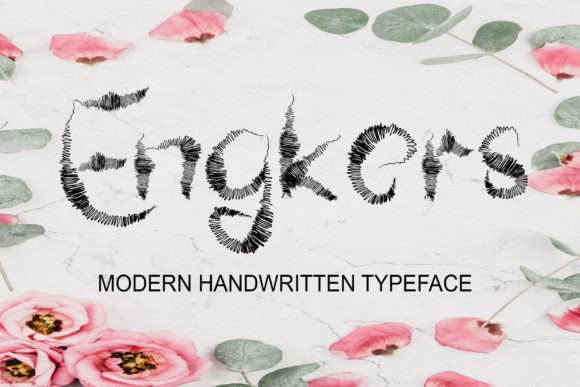
Introducing the Engkers Font family: A Script Haven for Creative Expression
Step into a world of elegance and charm, where handwritten artistry meets the digital age. Engkers Font is a captivating script font family, meticulously crafted to ignite creativity and elevate your projects to new heights.
Transport yourself to a world where words dance across the page with undeniable grace. Engkers' timeless calligraphy-inspired design brings a touch of sophistication and charm to any project, whether you're crafting personalized cards, designing social media posts, or creating eye-catching logos.
Explore the depths of Engkers' versatility, seamlessly transitioning from formal invitations to playful greeting cards. Its inherent charm will captivate your audience, leaving a lasting impression that speaks volumes.
Unleash your imagination and let Engkers become your creative companion. Its flowing lines and elegant curves will effortlessly add a personal touch to your designs, making them truly unique and unforgettable.
Don't settle for ordinary fonts. Embrace Engkers, a font family that ignites passion, sparks creativity, and transforms your projects into artistic masterpieces.
Immerse yourself in the world of Engkers and discover the endless possibilities that await. Experience the joy of creating with a font that feels like an extension of your own artistry.
Make Engkers your go-to choice for crafting designs that resonate with your audience. Let it become your trusted ally in conveying messages with style, grace, and sophistication.